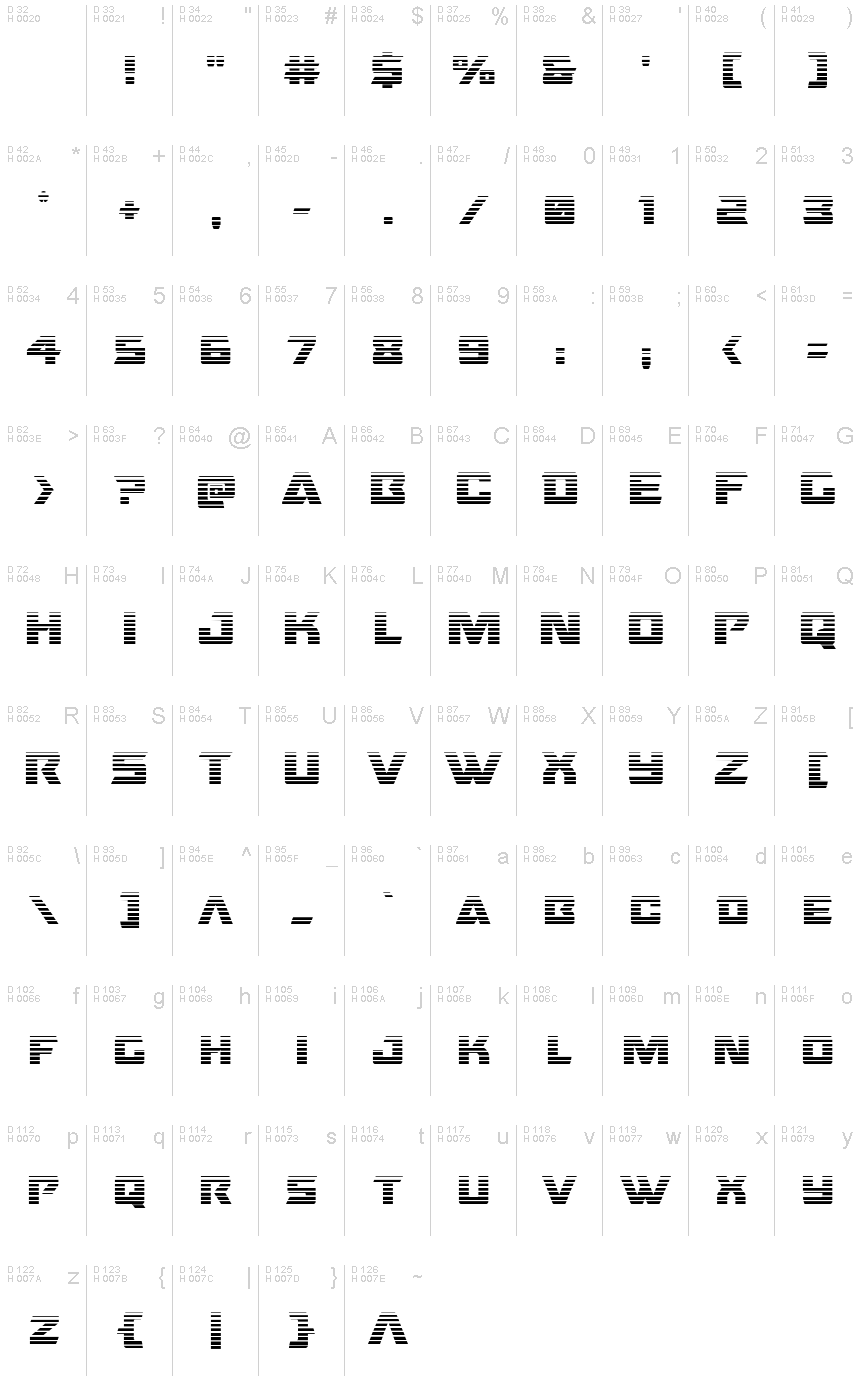
Oceanic Drift Gradient
Oceanic Drift Gradient, part of the Oceanic Drift family designed by Iconian Fonts, stands out with its bold, futuristic style and expanded width. This display font features a striking gradient effect that adds depth and dimension to each character, creating a visually captivating experience.
The unique design of Oceanic Drift Gradient makes it perfect for high-impact applications such as sci-fi movie posters, tech-themed events, and cutting-edge branding projects. Its boldness ensures it captures attention while the expanded characters provide a sense of modernity and innovation. Ideal for designers seeking to convey a forward-thinking aesthetic, this font commands presence in any setting where futuristic elegance is paramount.